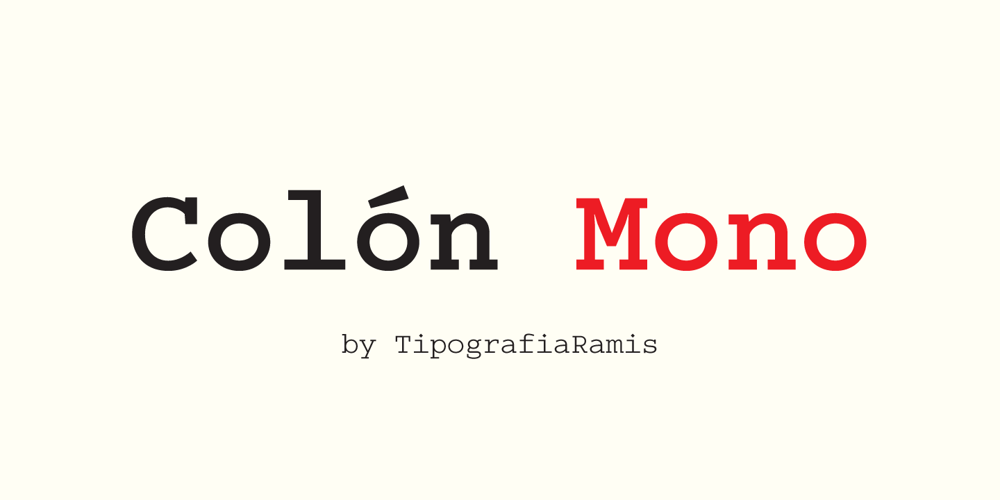
Colon Mono Font Family was designed by Ramiz Guseynov and published by TipografiaRamis. Colon Mono contains 8 styles and family package options. Colón Mono is a monospaced slab serif type family of eight styles. The typeface design was influenced by the nostalgia for the aesthetic of a typewriter. Colón Mono is a counterpart to Colón sub-family and consists of two weights of roman and alternative styles and matching italics respectably. Colón Mono is released in OpenType format with extended support for most Latin languages, and includes some opentype features.